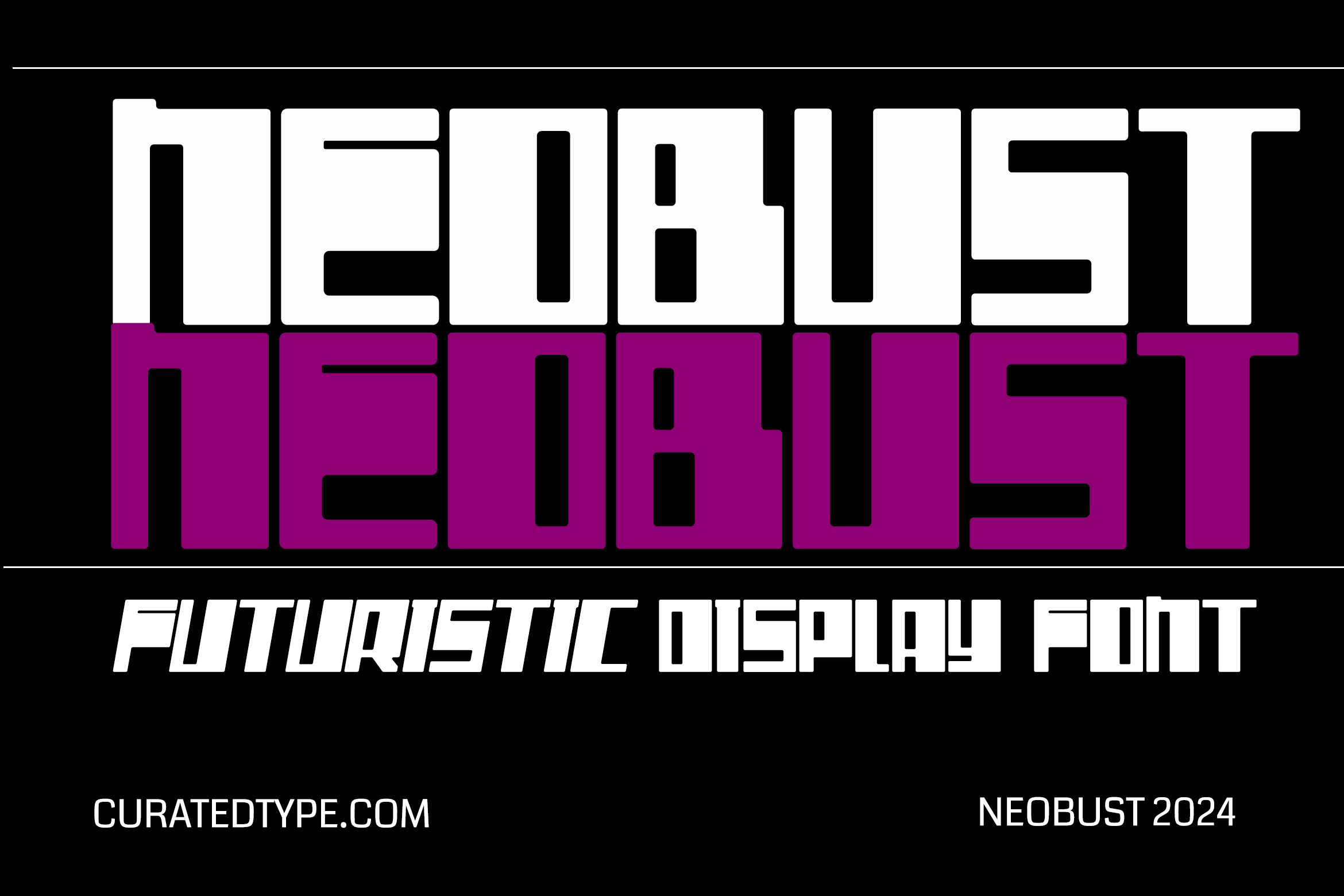
Neobust - Futuristic Display Font
Neobust is a bold, futuristic display font with angular precision and a sleek, high-tech aesthetic. Its geometric structure and sharp contours create a striking impact, ideal for sci-fi themes, technology branding, and digital interfaces. A balanced uppercase/lowercase design ensures consistency, while its numbering system maintains the font's forward-looking energy. Neobust's innovative design commands attention in titles, logos, and promotional materials.
Versatile and impactful, Neobust integrates seamlessly into cyberpunk, gaming, and digital media, projecting a powerful, contemporary presence. Its bold letterforms evoke motion and intensity, perfect for futuristic branding. The structured, yet expressive style enhances readability while retaining its avant-garde appeal, making Neobust the ultimate choice for designers seeking innovation, energy, and a sleek, technological edge.